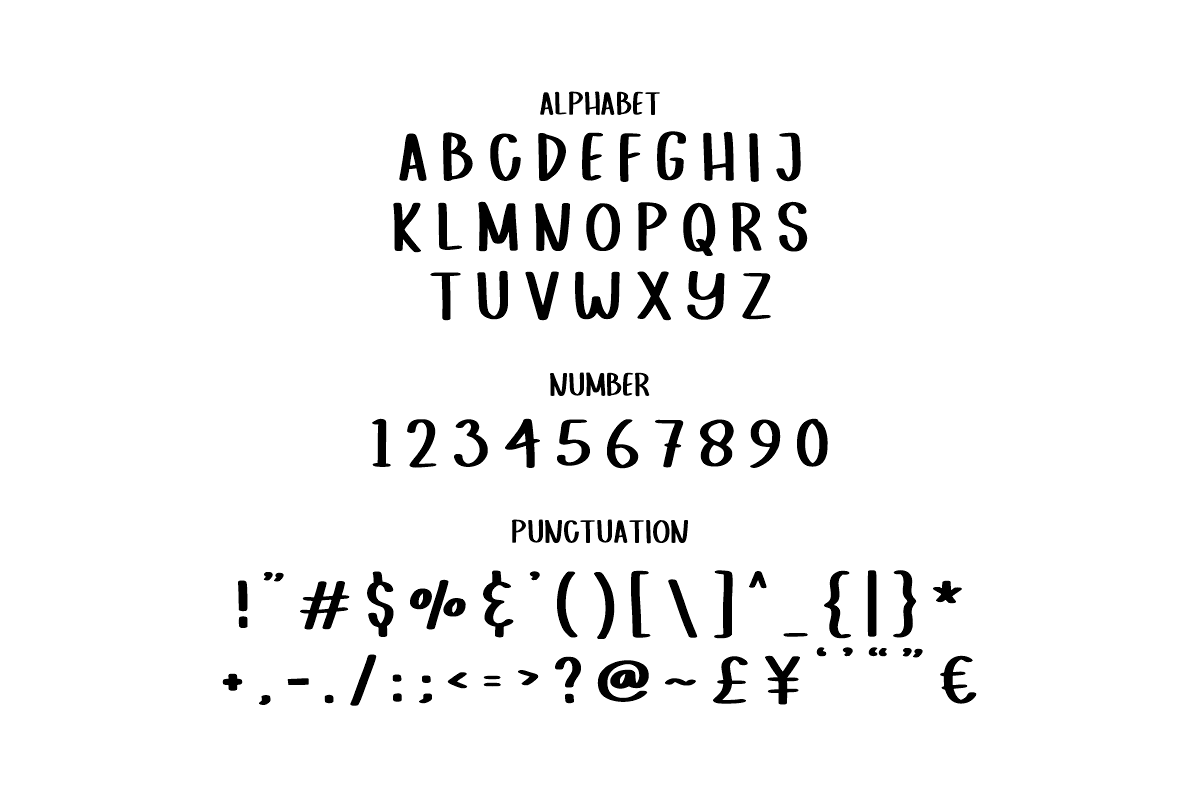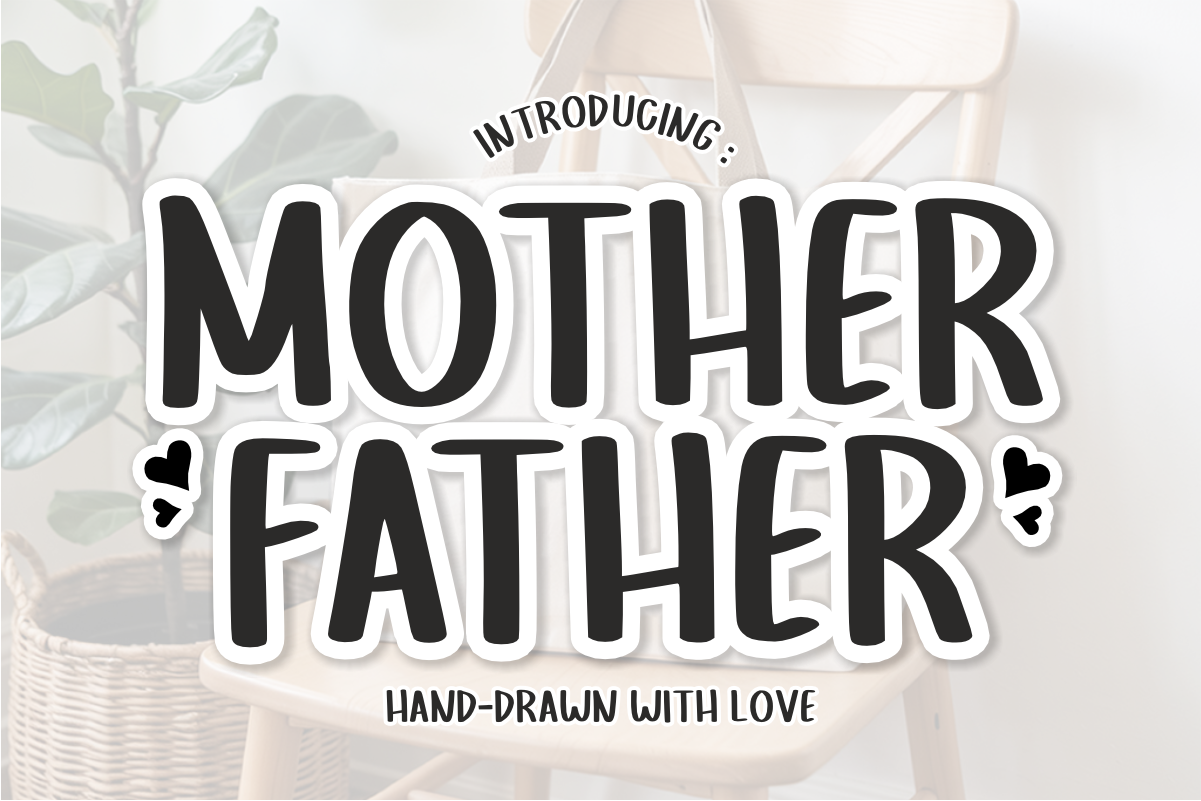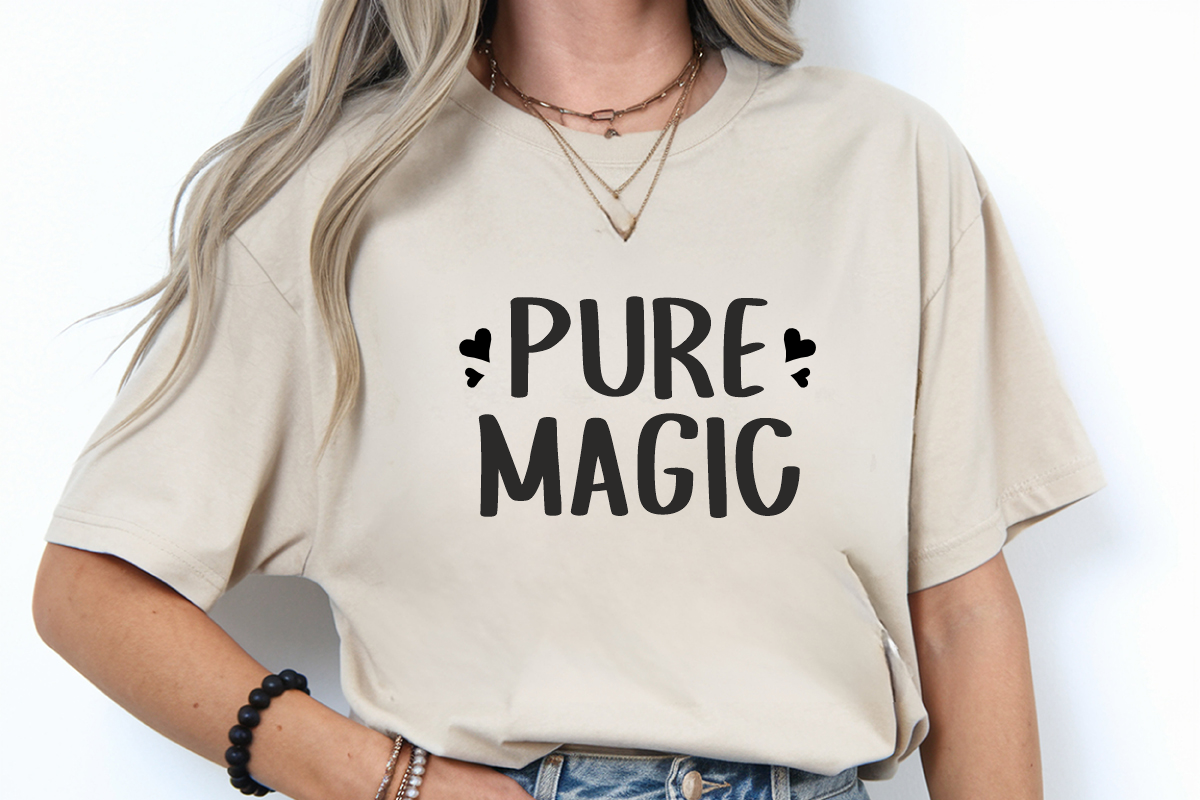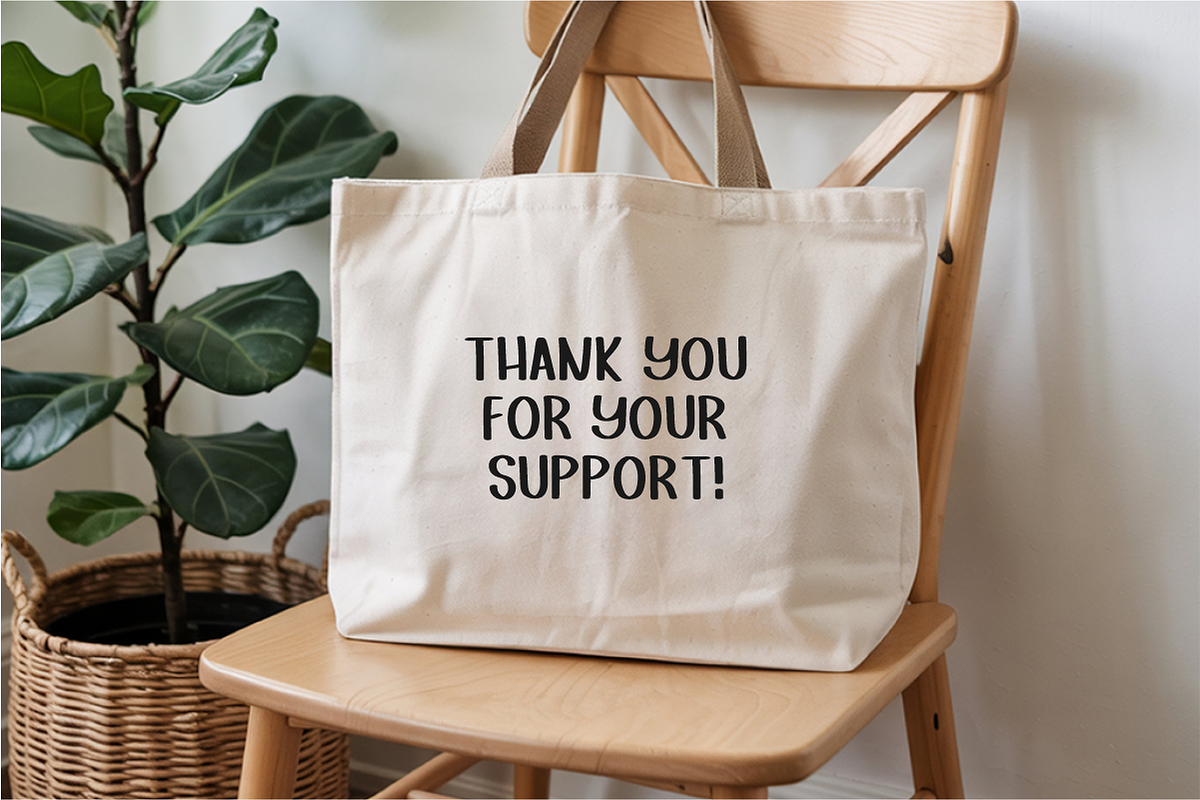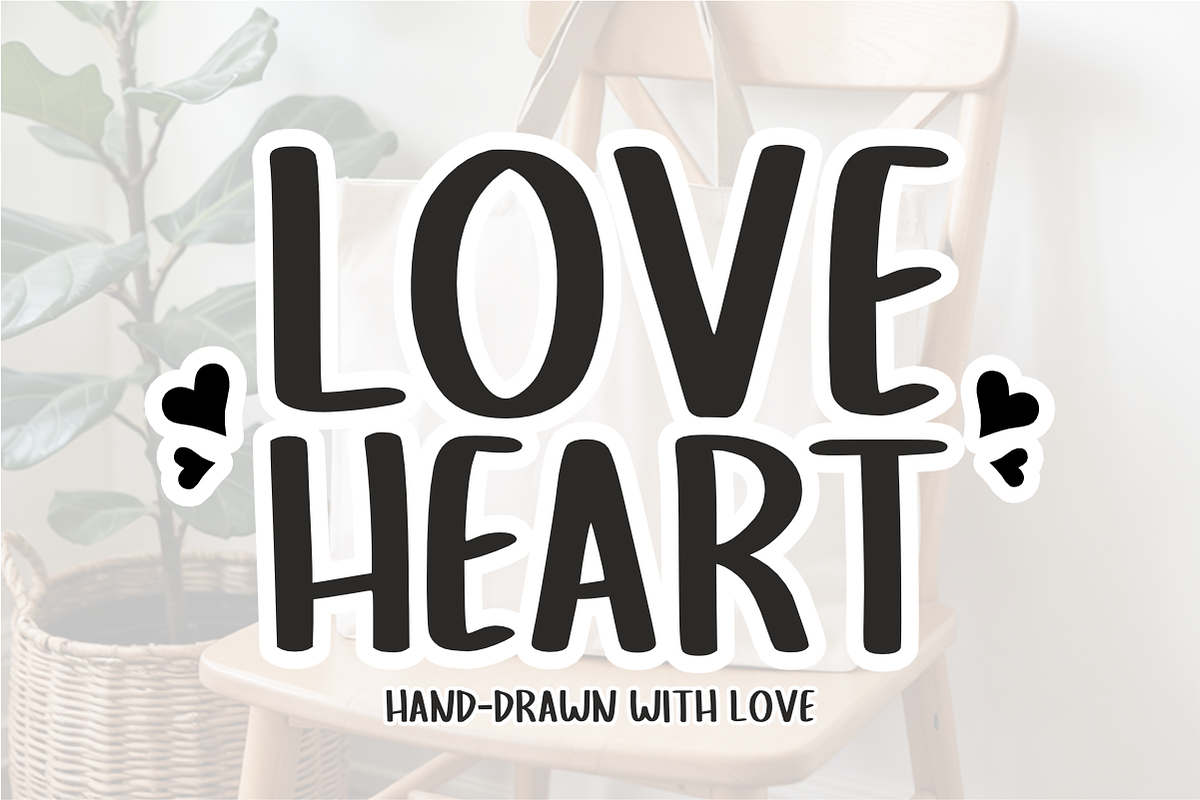
Mother Father - Cute Craft Font
Mother Father is a tall, charming, hand-drawn display font crafted with warmth and love. Featuring clean, bold letterforms with an organic handcrafted feel, this versatile font is perfect for family-themed apparel, cute tote bags, greeting cards, and cozy DIY craft projects. Every character is cleanly vectorized to guarantee high-resolution prints and smooth, effortless cutting on Cricut and Silhouette machines.
Uppercase Character Set
Numbers & Basic Punctuation
Ideal For:
Cricut, Silhouette, and HTV vinyl crafting for custom tote bags, family t-shirts, ceramic mugs, and cozy home decor
Etsy sellers creating Mother’s Day gifts, Father’s Day presents, personalized family keepsakes, and greeting cards
Teachers Pay Teachers (TpT) authors making classroom headers, learning worksheets, and student resource covers
Canva template creators designing sweet social media graphics, quote prints, and event posters
Custom die-cut sticker packs, planner decals, and digital scrapbooking layouts
Boutique product packaging, apparel branding, and lifestyle merchandise